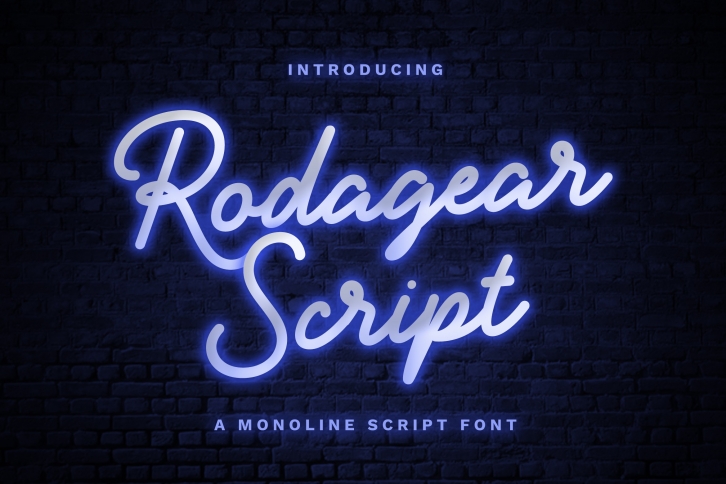
Rodagear is a great font that was designed by Wacaksara Co. Imagine the amount of combinations you can create using this font! The archive is 17.24 MB and it was released on February 10, 2020. Rodagear looks beautiful on wedding invitations, greeting cards, logos, posters, labels, t-shirt designs, logos, business cards and is perfect for use in ink or watercolor works, fashion, magazines, packaging and food menus, children's books and more!